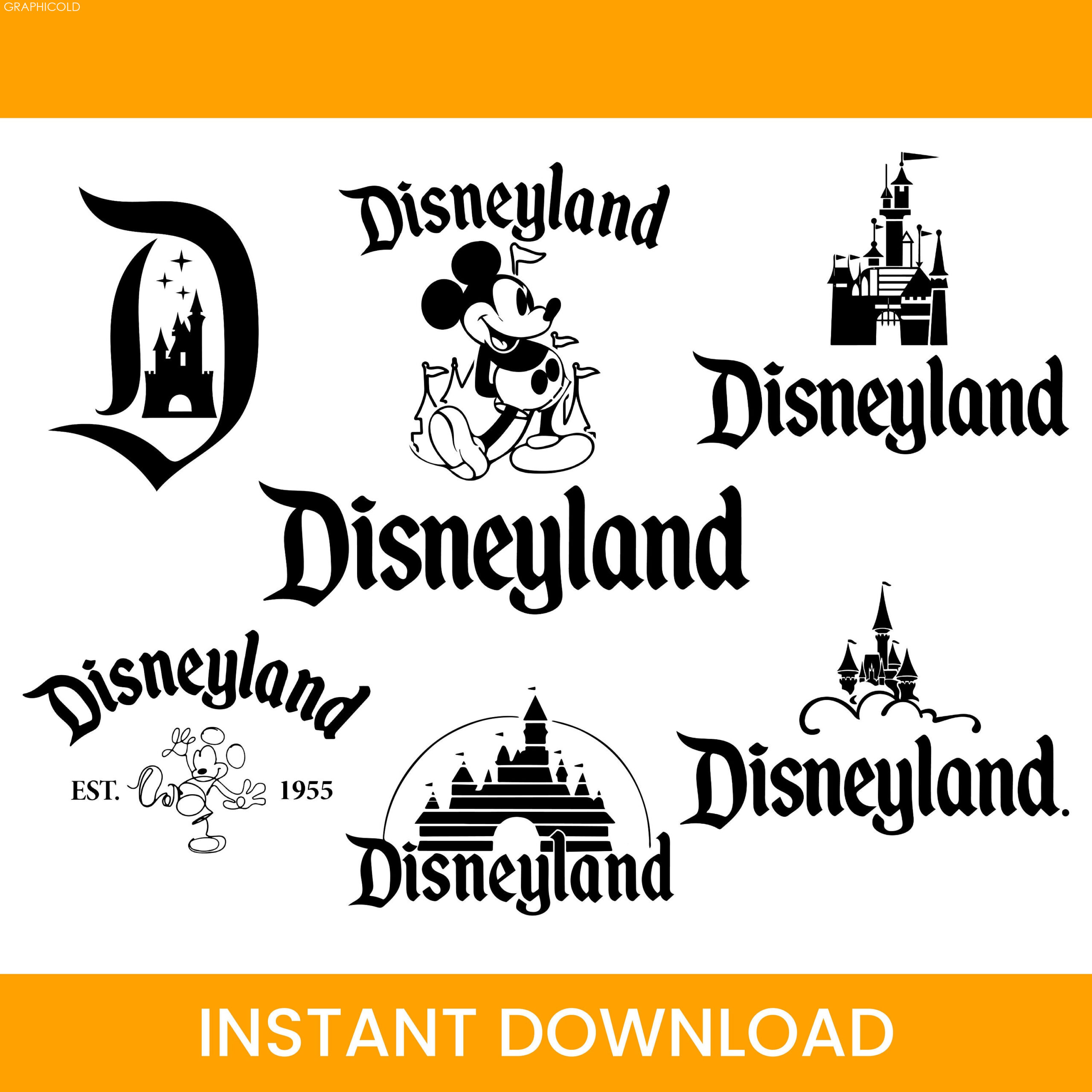
disneyland font: The Iconic Typeface of the Happiest Place on Earth
Disneyland, the iconic theme park that has brought joy and wonder to millions of people since its opening in 1955, is not only famous for its magical rides and attractions, but also for its distinctive typography. The Disneyland font, also known as Walt Disney Script or Waltograph, has become an instantly recognizable symbol of the brand, and has been used in various forms of media and merchandising.
The origins of the Disneyland font can be traced back to Walt Disney himself, who had a passion for calligraphy and lettering. He often created hand-drawn logos and titles for his early animated films, and even designed the original Disneyland logo in his own handwriting. In the 1980s, a graphic designer named Justin Callaghan developed a computerized version of Walt Disney’s script, which became the basis for the modern-day Disneyland font.
The Disneyland font is a playful and whimsical typeface that captures the spirit of the park. It features rounded, flowing letters with exaggerated curves and loops, giving it a sense of movement and energy. The letters themselves are slightly slanted and irregular, giving the font a hand-drawn look that reflects the human touch behind it. The font is also available in a bold version, which is often used for headlines and signage.
The Disneyland font has been used in a variety of ways throughout the park, from attraction names and ride vehicles to souvenir merchandise and park maps. It has also been featured in countless Disney films and TV shows, as well as in the branding of other Disney theme parks around the world. The font has become so iconic that it has even inspired countless imitations and knockoff versions.
But the Disneyland font is more than just a simple typeface. It represents the magic and wonder of the park, and embodies the spirit of Walt Disney himself. It is a reminder of the creativity and imagination that went into building Disneyland, and serves as a symbol of the joy and happiness that the park brings to people of all ages.
In conclusion, the Disneyland font is a truly iconic symbol of the happiest place on earth. It captures the whimsy, magic, and creativity of the park, and serves as a reminder of the legacy of Walt Disney himself. Whether you’re visiting Disneyland for the first time or you’re a lifelong fan, the Disneyland font is sure to bring a smile to your face and a sense of wonder to your heart.